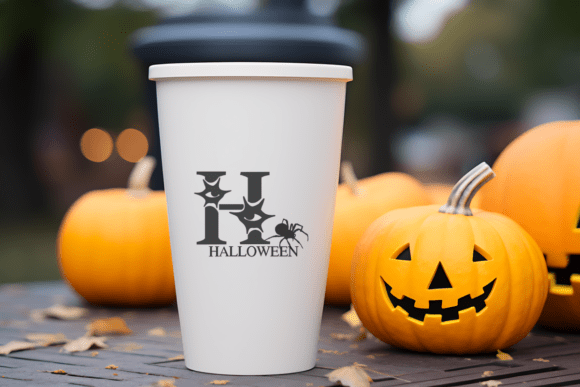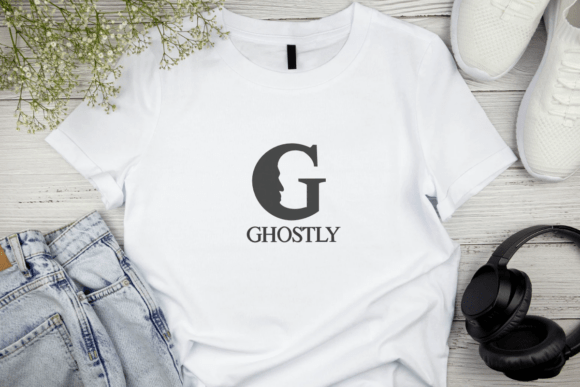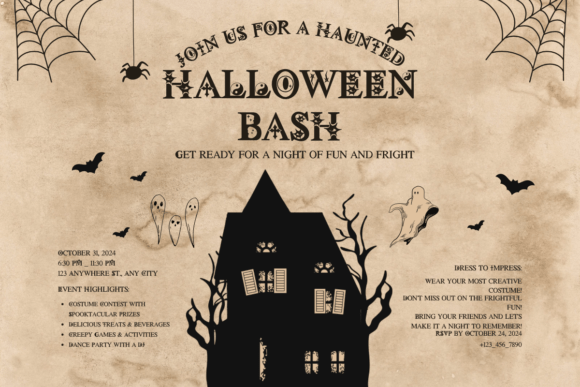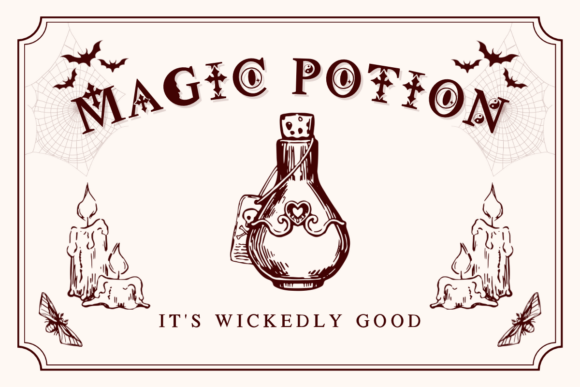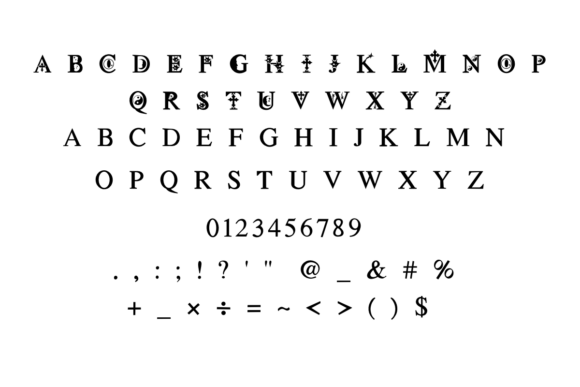
Introduction to Ghostly Grimoire Font
Immerse your creative projects in the spellbinding charm of Ghostly Grimoire, a decorative font designed to elevate your ideas.
From penning down your deepest thoughts in a diary or chalking out the day’s plans into notes, Ghostly Grimoire adds a touch of mystique Not confined to personal use, this font adds its unique grain to wider applications too.
Key Features of Ghostly Grimoire Font
Why Choose Ghostly Grimoire Font?
Ghostly Grimoire Font offers exceptional quality and versatility, making it a valuable addition to your design toolkit. Whether you’re creating for personal projects or commercial use, Ghostly Grimoire Font delivers professional results.